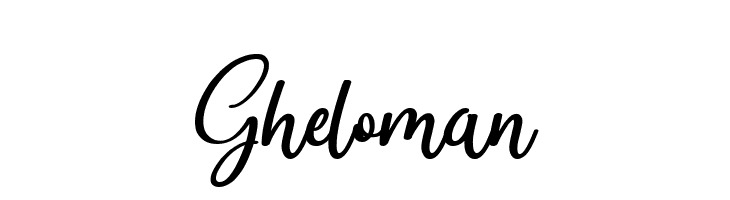
A lively and expressive script font with flowing, cursive letterforms.
A playful, handwritten script font with medium contrast and dynamic strokes.
A playful, flowing handwritten font with elegant loops and smooth cursive strokes.
A flowing, cursive script font with elegant, interconnected letters.
A flowing, cursive script font with elegant, connected strokes.
A dynamic and expressive script font with fluid, cursive letterforms.
A bold, energetic script font with fluid, dynamic strokes and a casual, handwritten feel.